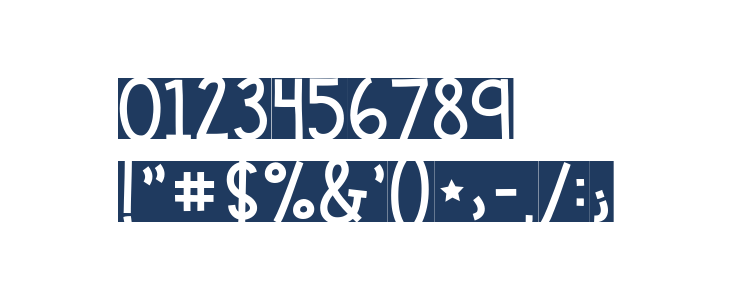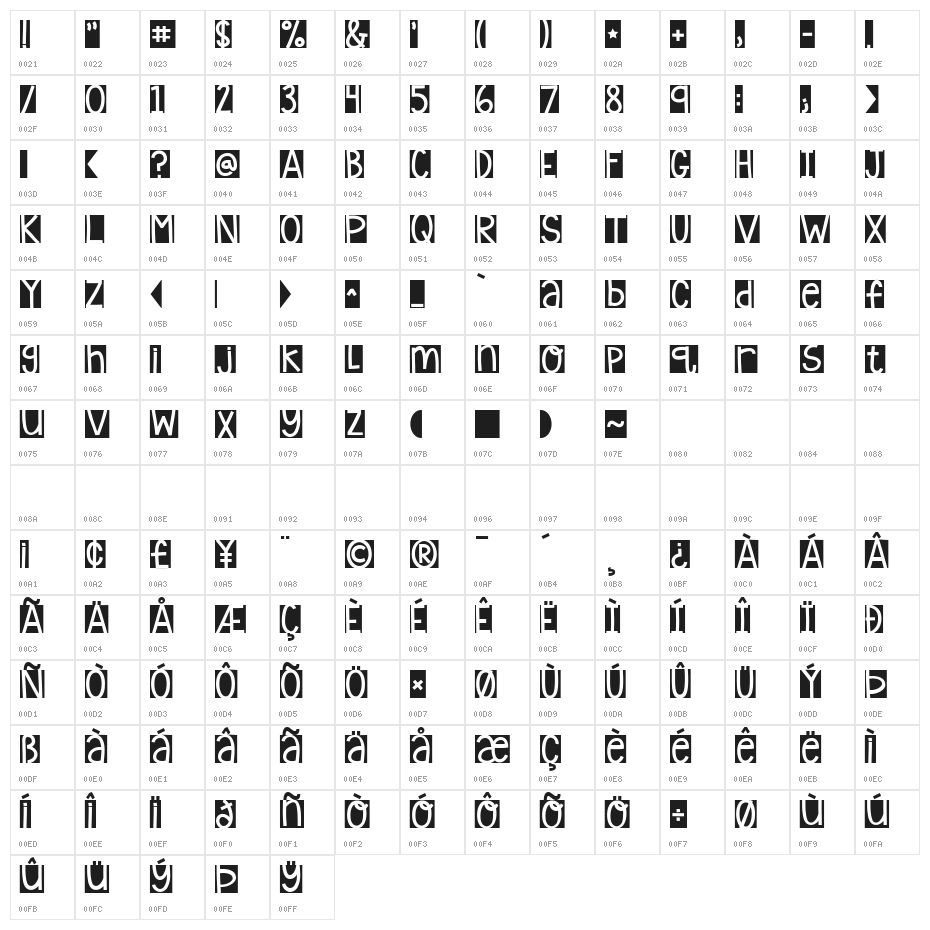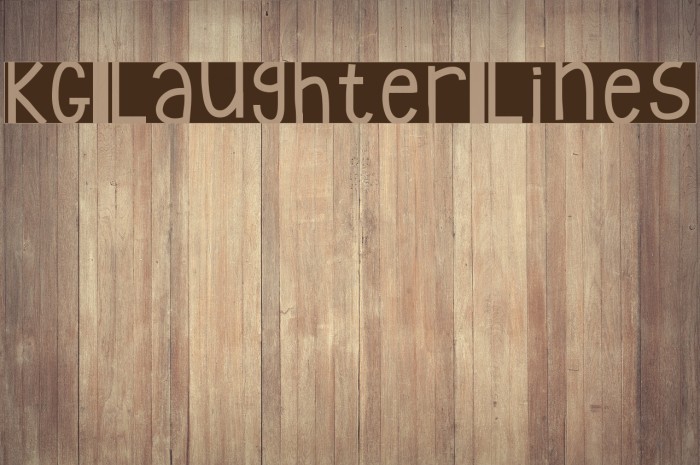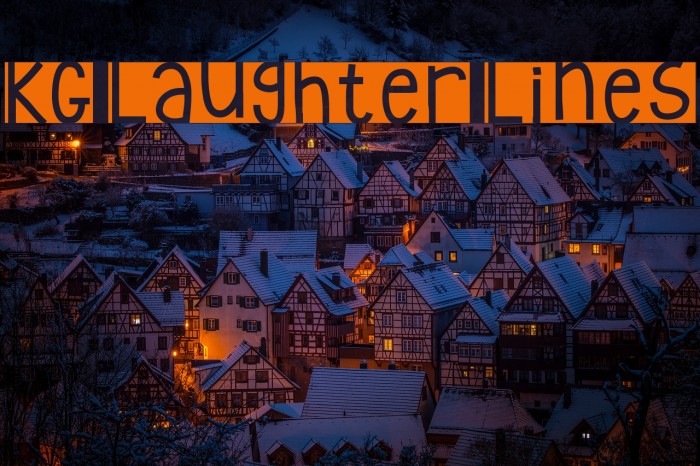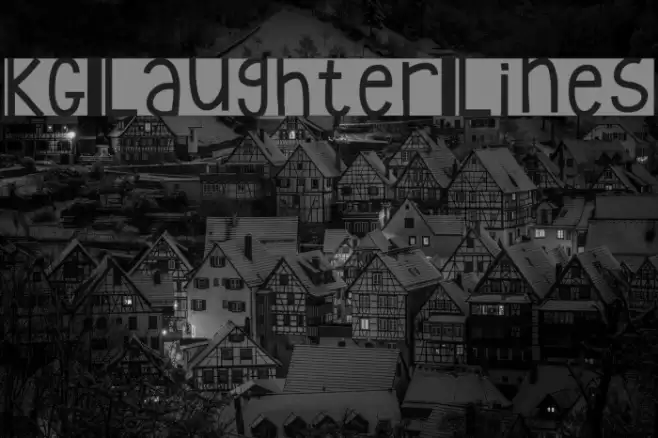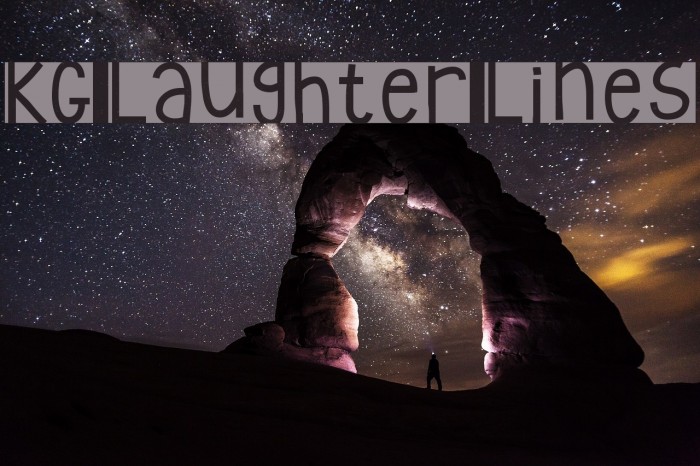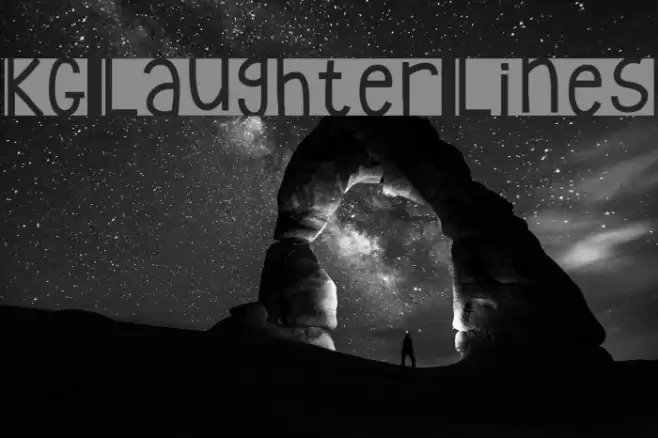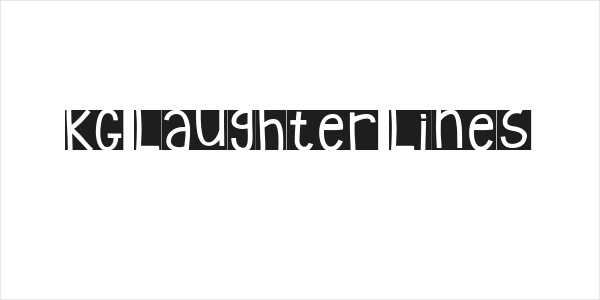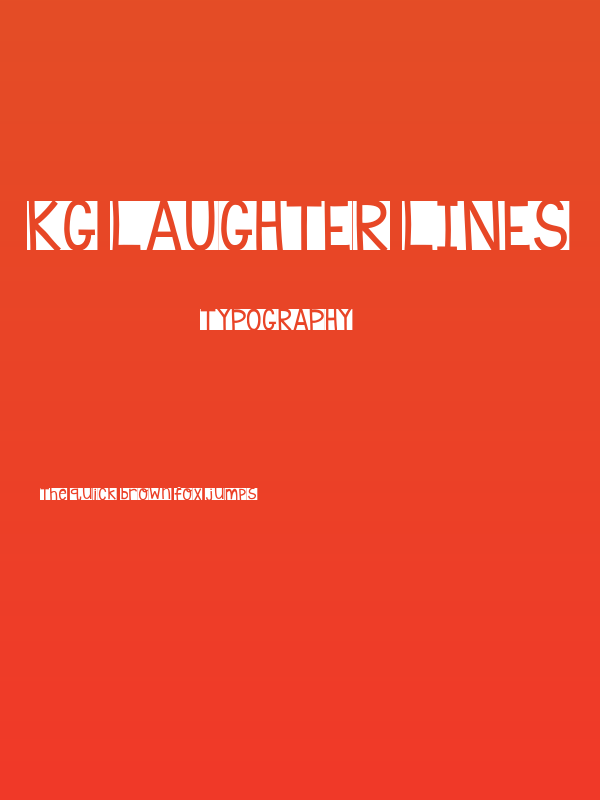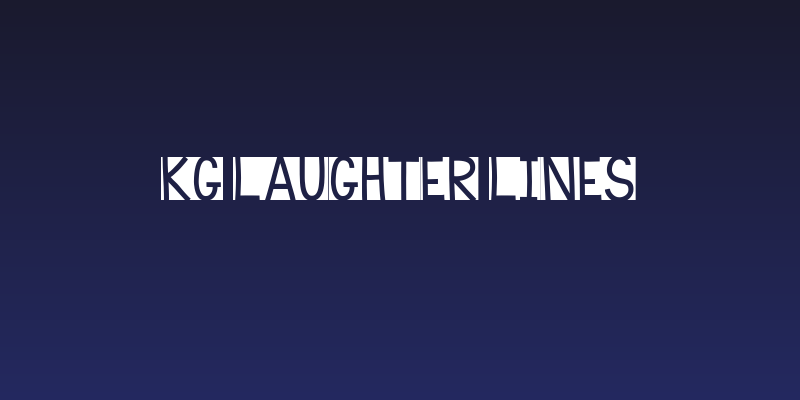
KG Laughter Lines Font
KG Laughter Lines Description
This playful and whimsical font features a unique blend of bold and quirky elements, making it stand out with its distinctive character shapes. The uppercase letters are bold and have a slightly irregular form, giving them a fun and lively appearance. The lowercase letters maintain a similar playful style, with some characters having exaggerated curves and loops. The numbers and special characters continue this theme, with each symbol designed to complement the overall aesthetic. This font's boldness and creativity make it ideal for projects that require a touch of humor and personality.
| Overall Style | Playful, Whimsical, Creative |